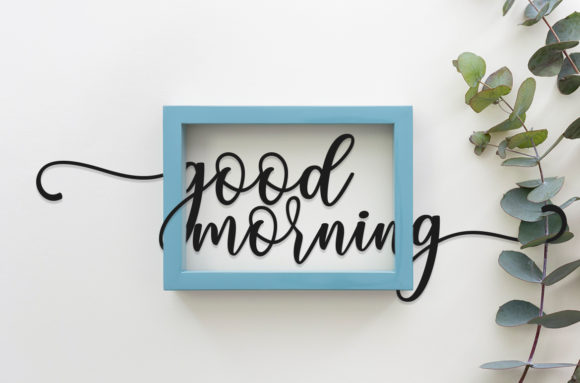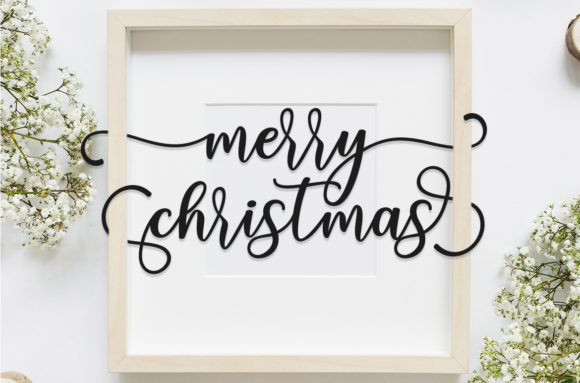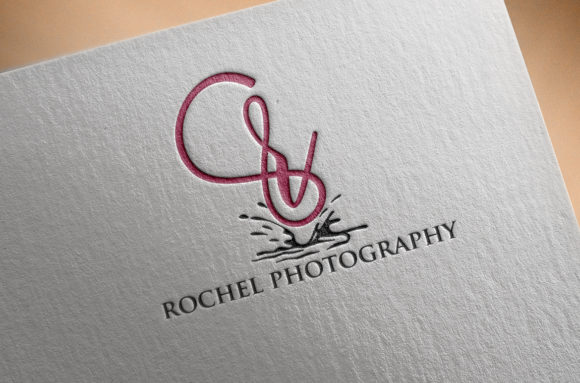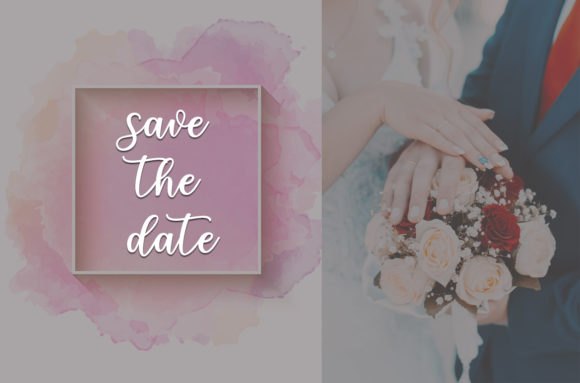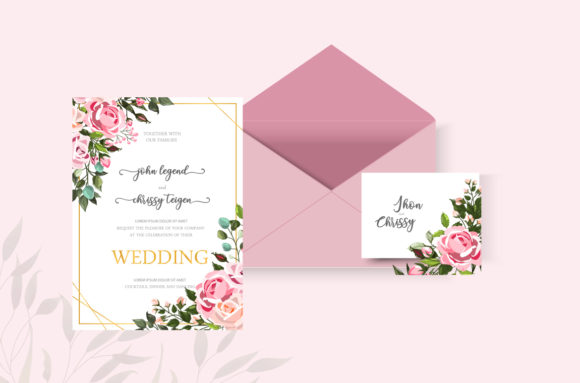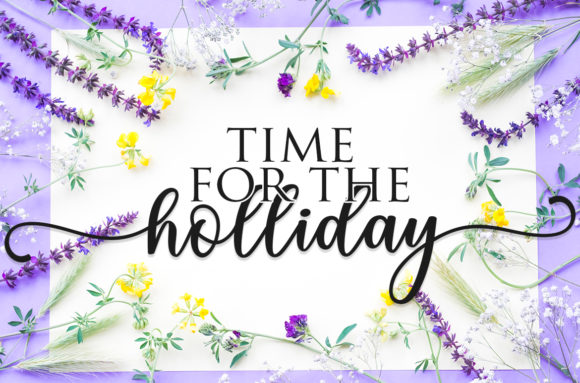
Introducing Charlinda Font: The Sweet and Friendly Script for Crafty Designs
Are you a designer, crafter, or DIY enthusiast looking for a font that exudes warmth and friendliness? Look no further than Charlinda Font! This beautiful script font is perfect for adding a personal touch to your quotes, branding, invitations, and various other crafty projects. With its smooth lines and classic charm, Charlinda Font is sure to become your go-to choice for creating visually appealing and engaging designs.
The Characteristics of Charlinda Font
Charlinda Font is a sweet and friendly script that boasts smooth lines, making it a joy to read and work with. Its classic crafting style evokes a sense of nostalgia and warmth, perfect for creating designs that feel approachable and inviting. Whether you’re working on a handmade project, a branding campaign, or a special invitation, Charlinda Font is the ideal choice for adding a touch of personality and whimsy.
Perfect for Crafty Projects
Charlinda Font is specifically designed with crafty projects in mind. Its smooth lines and classic style make it perfect for:
- Quotes: Add a personal touch to your inspirational quotes, making them perfect for social media, posters, or even handmade cards.
- Branding: Create a unique and recognizable brand identity with Charlinda Font, ideal for crafty businesses, bloggers, or entrepreneurs.
- Invitations: Make your invitations stand out with Charlinda Font’s charming and elegant script, perfect for weddings, baby showers, or birthday parties.
- DIY Projects: Add a touch of personality to your handmade projects, such as knitting patterns, sewing tutorials, or woodworking plans.
Why Choose Charlinda Font?
So, why should you choose Charlinda Font for your next project? Here are just a few reasons:
- Unique and Versatile: Charlinda Font is a one-of-a-kind script that can be used in a variety of contexts, from formal to informal designs.
- Elegant and Whimsical: This font combines elegance and playfulness, making it perfect for creating designs that are both sophisticated and approachable.
- Easy to Read: Charlinda Font’s smooth lines and classic style ensure that your text is easy to read, even in smaller sizes.
- Customizable: With Charlinda Font, you can experiment with different colors, textures, and styles to create a unique look that suits your brand or project.
Tips for Using Charlinda Font
To get the most out of Charlinda Font, here are some tips to keep in mind:
- Pair with Other Fonts: Combine Charlinda Font with other fonts to create a unique and visually appealing design.
- Use for Headings and Titles: Charlinda Font is perfect for headings and titles, adding a touch of elegance and sophistication to your design.
- Keep it Simple: Don’t be afraid to keep your design simple and clean, letting Charlinda Font’s beauty shine through.
Charlinda Font is a beautiful and versatile script that’s perfect for designers, crafters, and DIY enthusiasts. With its smooth lines, classic charm, and sweet personality, this font is sure to become a favorite for creating engaging and visually appealing designs. Whether you’re working on a handmade project, a branding campaign, or a special invitation, Charlinda Font is the ideal choice for adding a touch of warmth and friendliness. So why wait? Give Charlinda Font a try today and see the difference it can make in your designs!